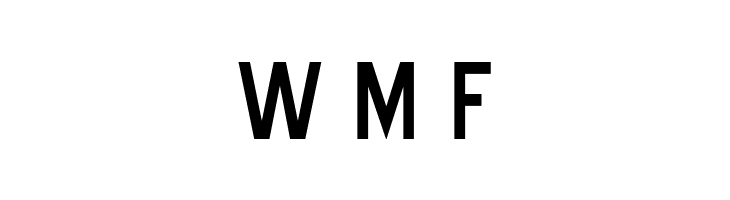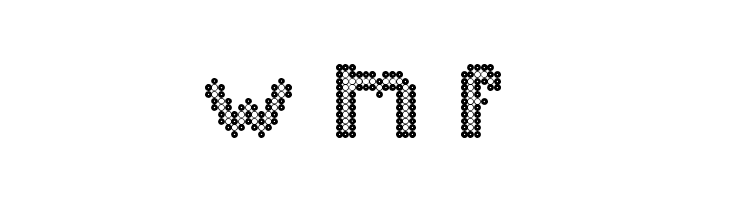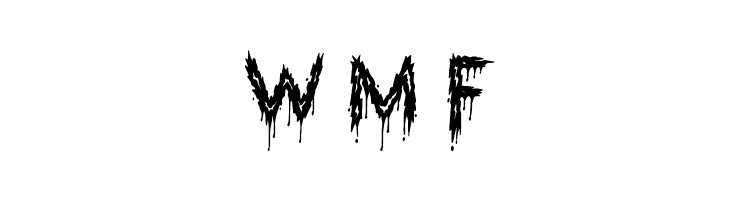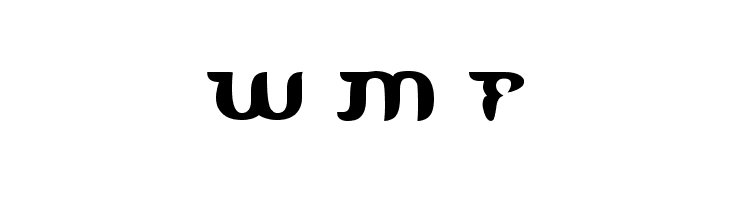
A bold, geometric font with sharp angles and circular forms.
A playful, bold outline font with a whimsical, hand-drawn style.
A bold, playful font with irregular, hand-drawn letterforms.
A bold, pixelated font inspired by retro digital displays.
A bold, decorative font with card suit symbols integrated into certain characters.
A bold, modern sans-serif font with clean lines and strong geometric shapes.
A bold, italic sans-serif font with a dynamic and modern style.
A modern, italic sans-serif font with a dynamic, sleek style.
A modern, geometric sans-serif font with a clean and professional look.
A bold, brush-style font with an artistic and dynamic appearance.
A calligraphic font with elegant serifs and dynamic, flowing characters.
A calligraphic font with elegant, flowing lines and moderate contrast.
A pixelated, retro font inspired by early digital graphics.
A bold, italic 3D font with a distressed, dynamic style.
A bold, distressed 3D font with a rugged, stone-like appearance.
A bold, distressed font with a rugged, grunge-like aesthetic.
A bold, italic, distressed font with a grunge aesthetic and dynamic style.
A bold, distressed, and condensed font with a rugged, edgy aesthetic.
A bold, distressed, condensed italic font with a rugged texture.
A bold, distressed font with a grunge aesthetic and expanded width.
A bold, distressed, and italic font with an expanded width for dynamic designs.
A bold, distressed font with a unique horizontal gradient effect.
A bold, italicized font with a gradient effect and textured horizontal lines, ideal for dynamic designs.
A bold, italicized font with a distressed, grunge aesthetic.
A bold, distressed font with a dynamic, edgy style.
A bold, distressed font with a rugged, chaotic appearance.
A bold, distressed italic font with a dynamic, edgy style.
A bold, distressed font with a grunge aesthetic and dynamic rotation.
A decorative blackletter font with intricate flourishes and high contrast.